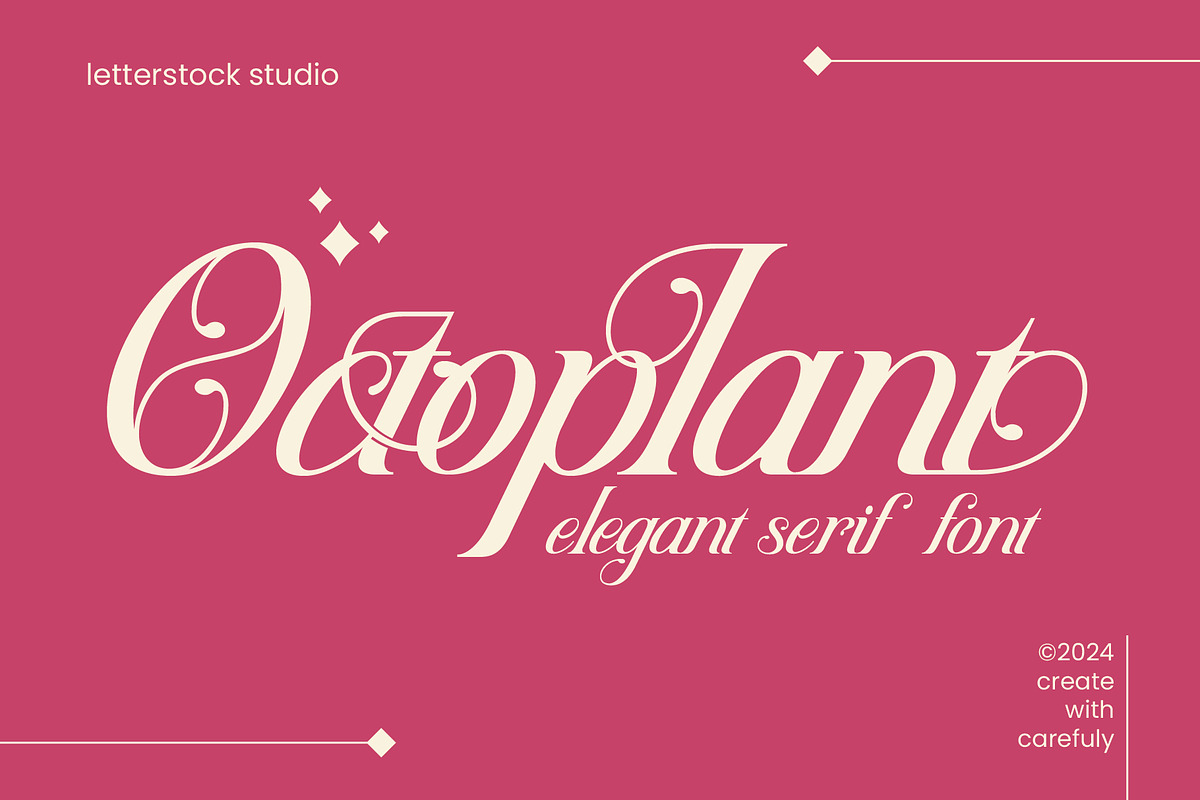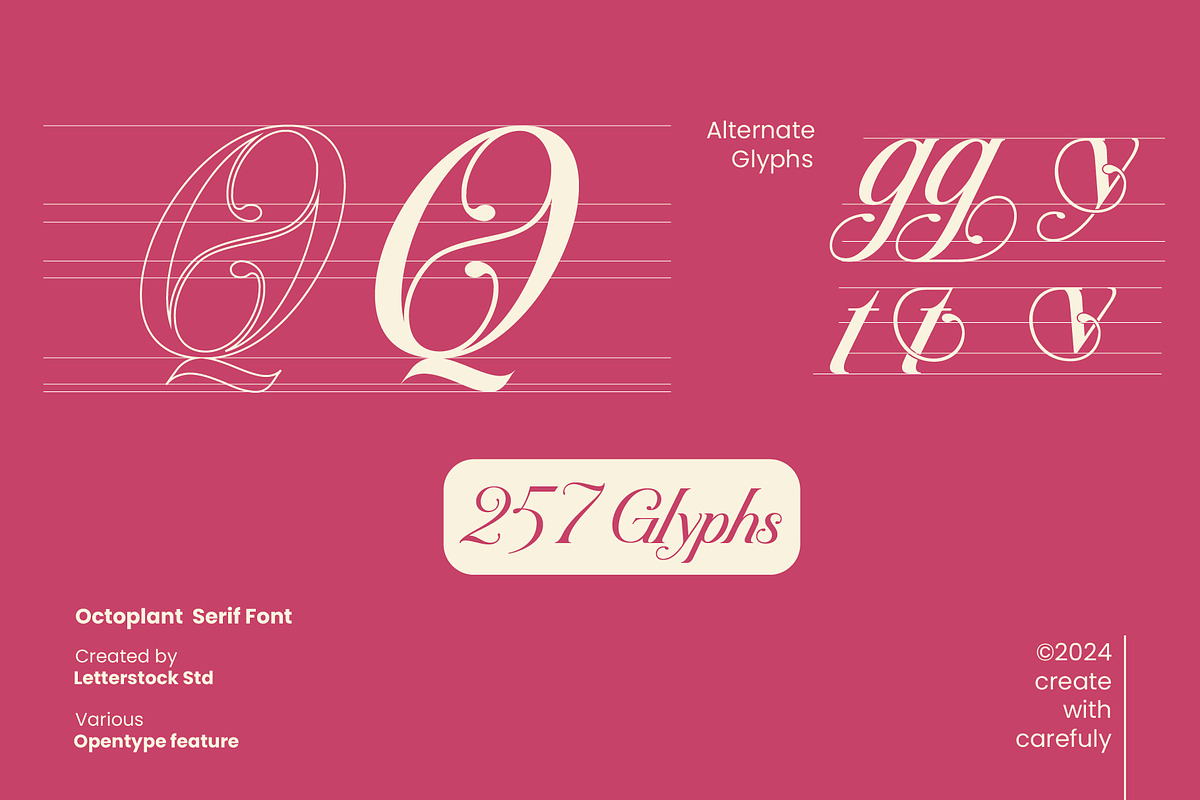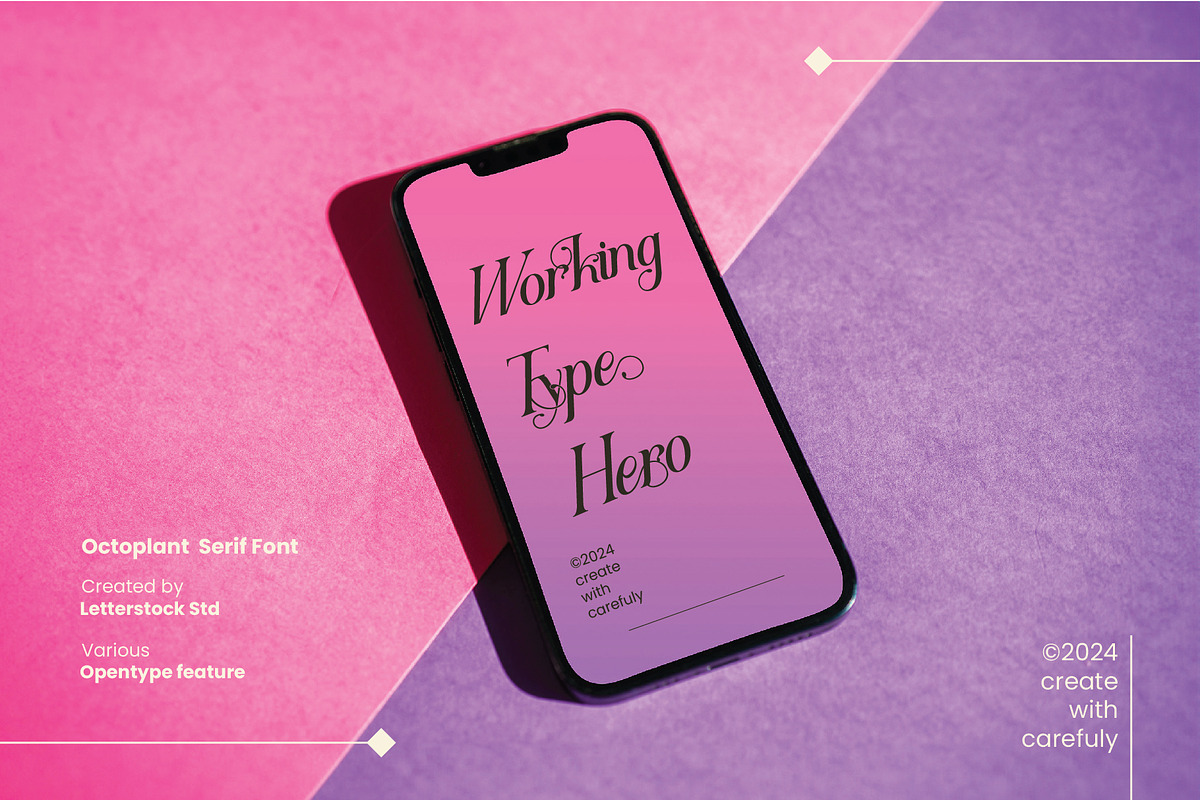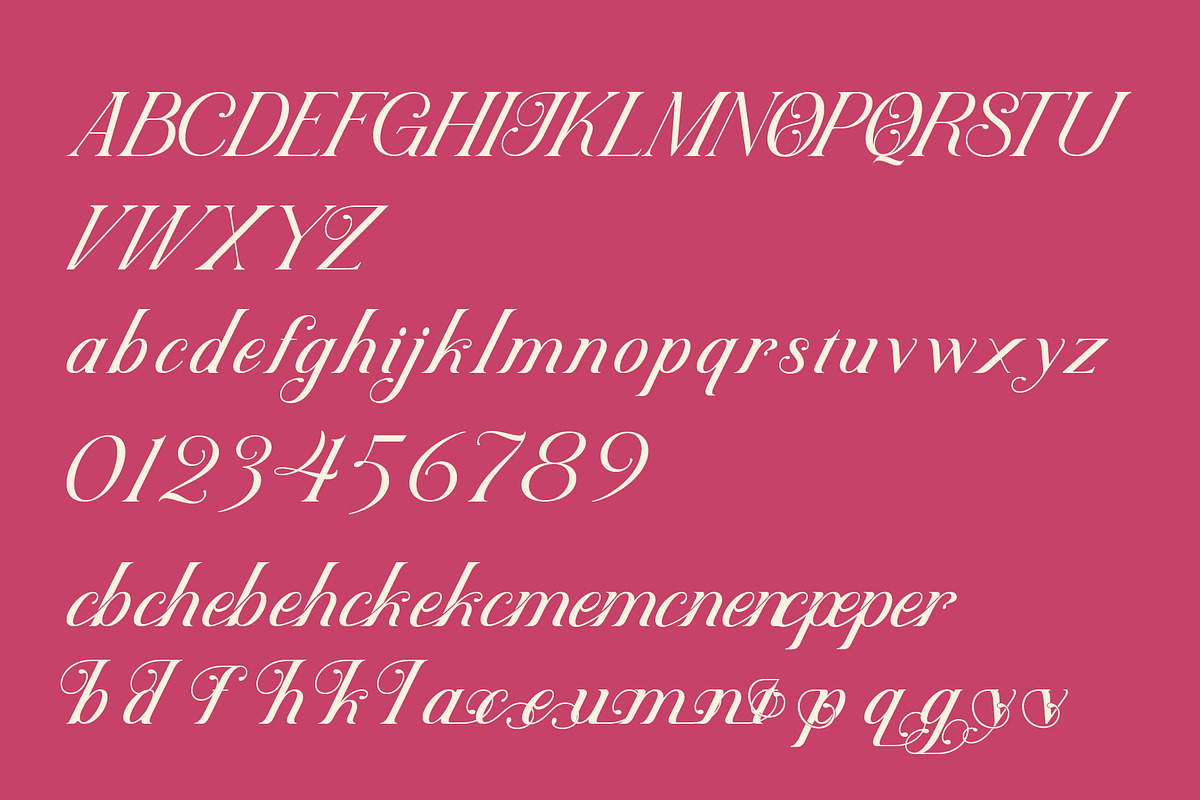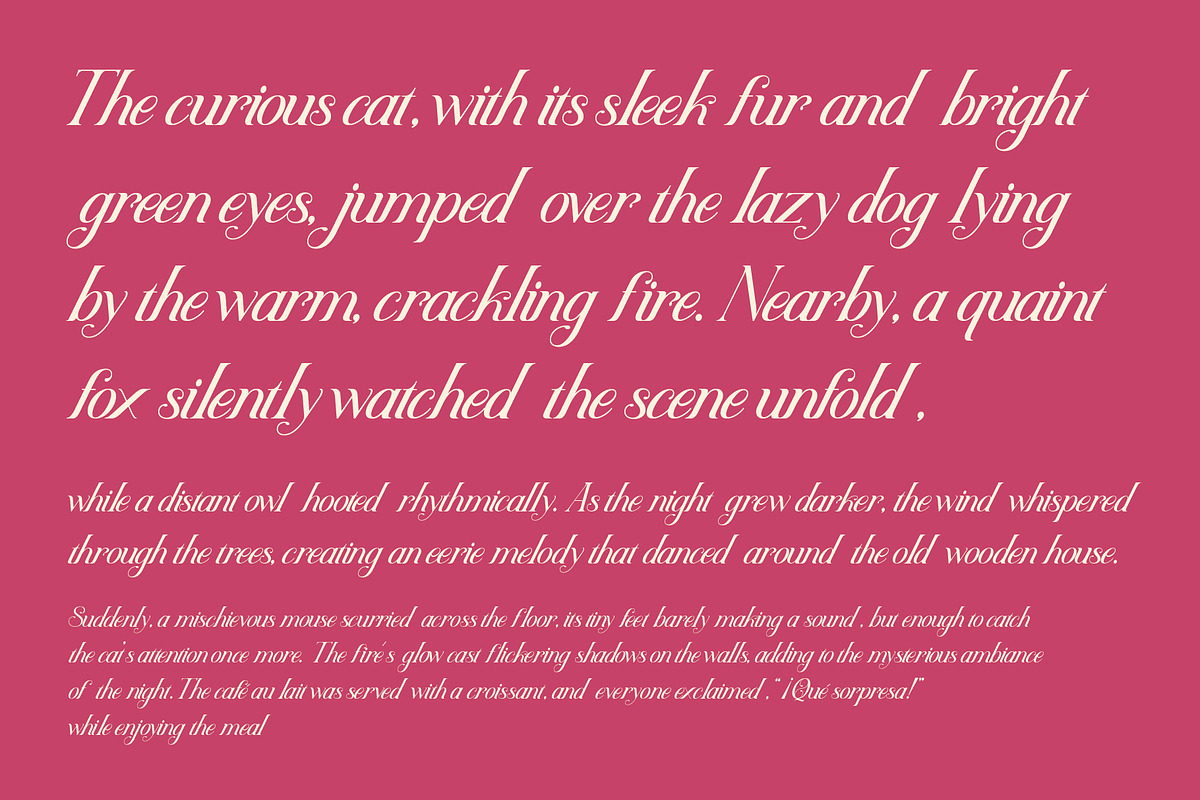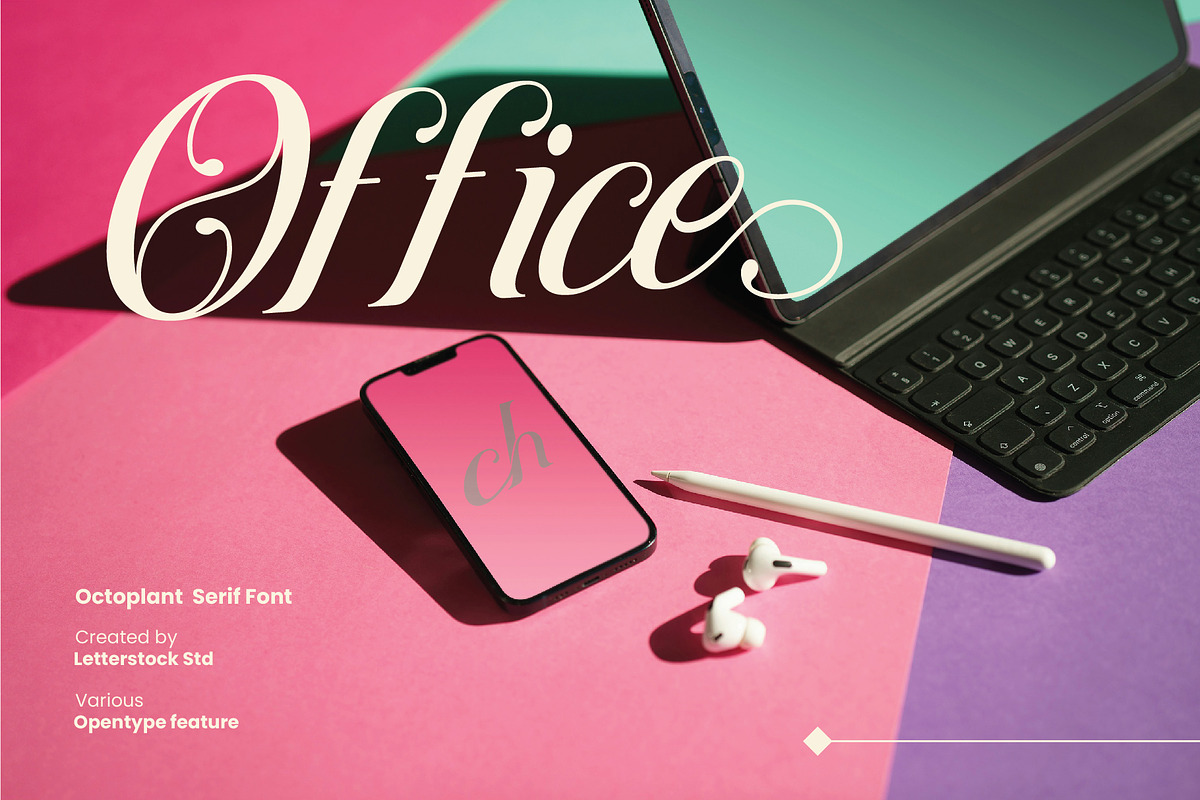
Octoplant
Introducing Octoplant, a modern elegant serif font designed to bring sophistication and style to your projects. With its clean lines and refined curves, Octoplant is perfect for creating stunning logos, elegant invitations, eye-catching posters, and luxurious branding materials. The font comes in both TTF and OTF formats, ensuring compatibility with a wide range of design software. Whether you're designing for print or digital, Octoplant will elevate your work with its timeless elegance and modern appeal. Make your next project stand out with the exquisite charm of Octopplant.